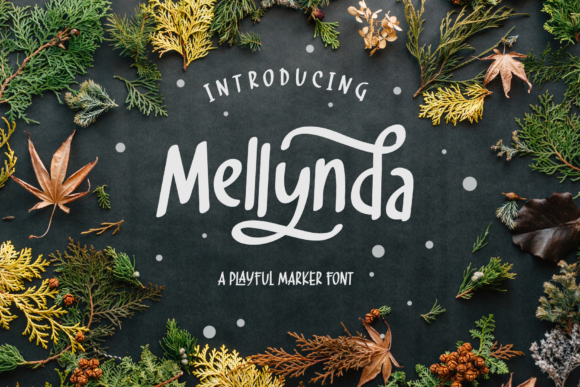
Behold, Mellynda Script Font, where playfulness and elegance intertwine in perfect harmony. A creation of Arterfak Project, this script font emanates a charm that stirs the soul, conjuring images of childhood wonder and innocent joy. With its marker-style strokes, Mellynda dances across the page, leaving a trail of magic and enchantment in its wake.
Step into a world where creativity knows no bounds, where imagination takes flight, and where words transform into works of art. Mellynda Script Font is your passport to this enchanting realm, a font that will ignite your passion for design and leave your audience spellbound.
With its playful spirit and elegant demeanor, Mellynda effortlessly captures the essence of carefree days and heartfelt moments. Its flowing lines evoke a sense of nostalgia, a longing for the simplicity and joy of childhood. Yet, amidst this playfulness, Mellynda retains an air of sophistication, a touch of grace that elevates it beyond the realm of mere whimsy.
Whether you're crafting captivating logos, designing enchanting invitations, or creating social media posts that pop, Mellynda Script Font is your secret weapon. Its versatility knows no limits, adapting seamlessly to a myriad of projects, from playful branding to heartfelt personal messages.
So, unleash your creativity and embrace the magic of Mellynda Script Font. Let your designs blossom with joy, your words dance with delight, and your imagination soar to new heights. Experience the enchanting power of Mellynda today and embark on a creative journey like no other.